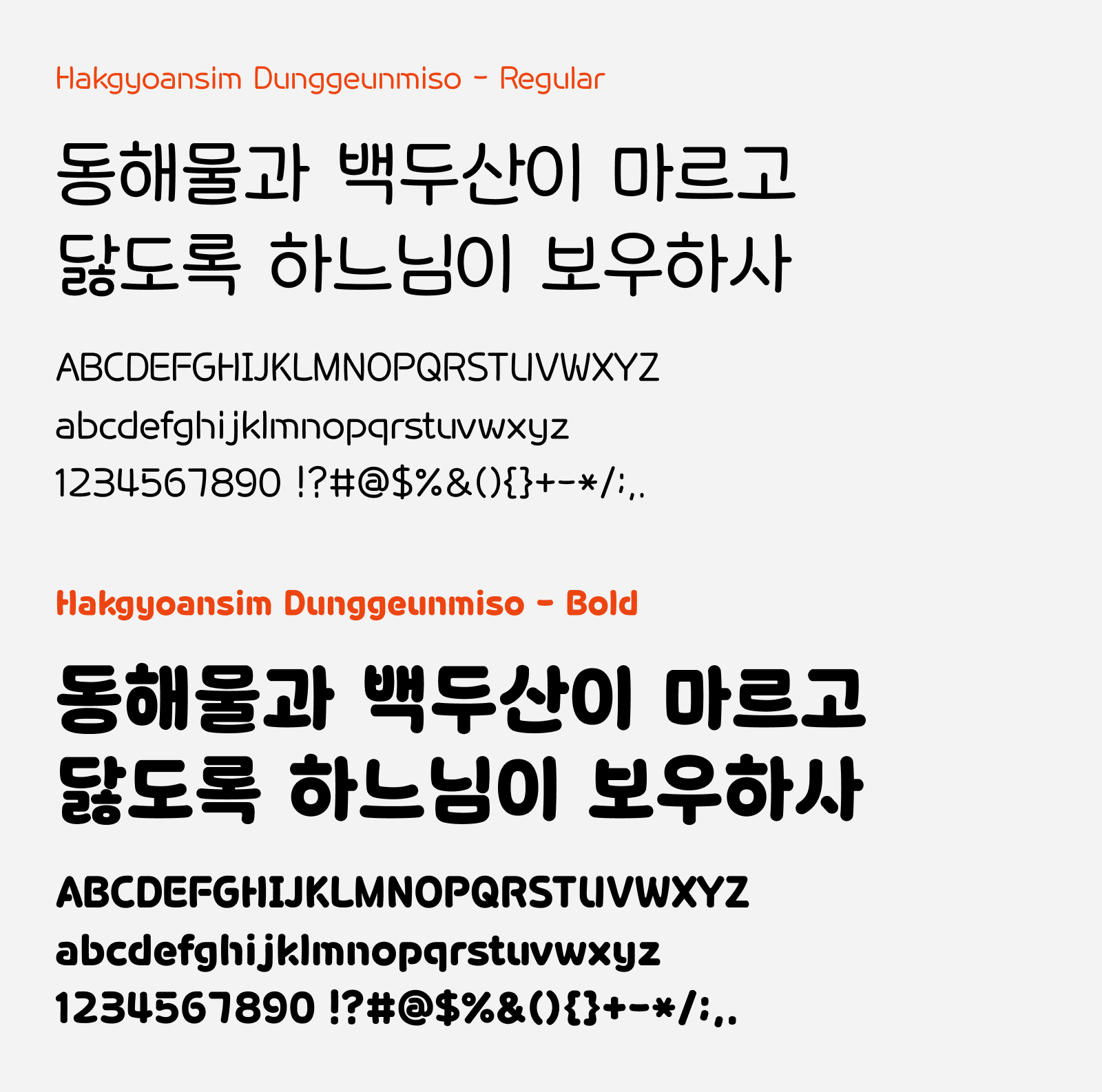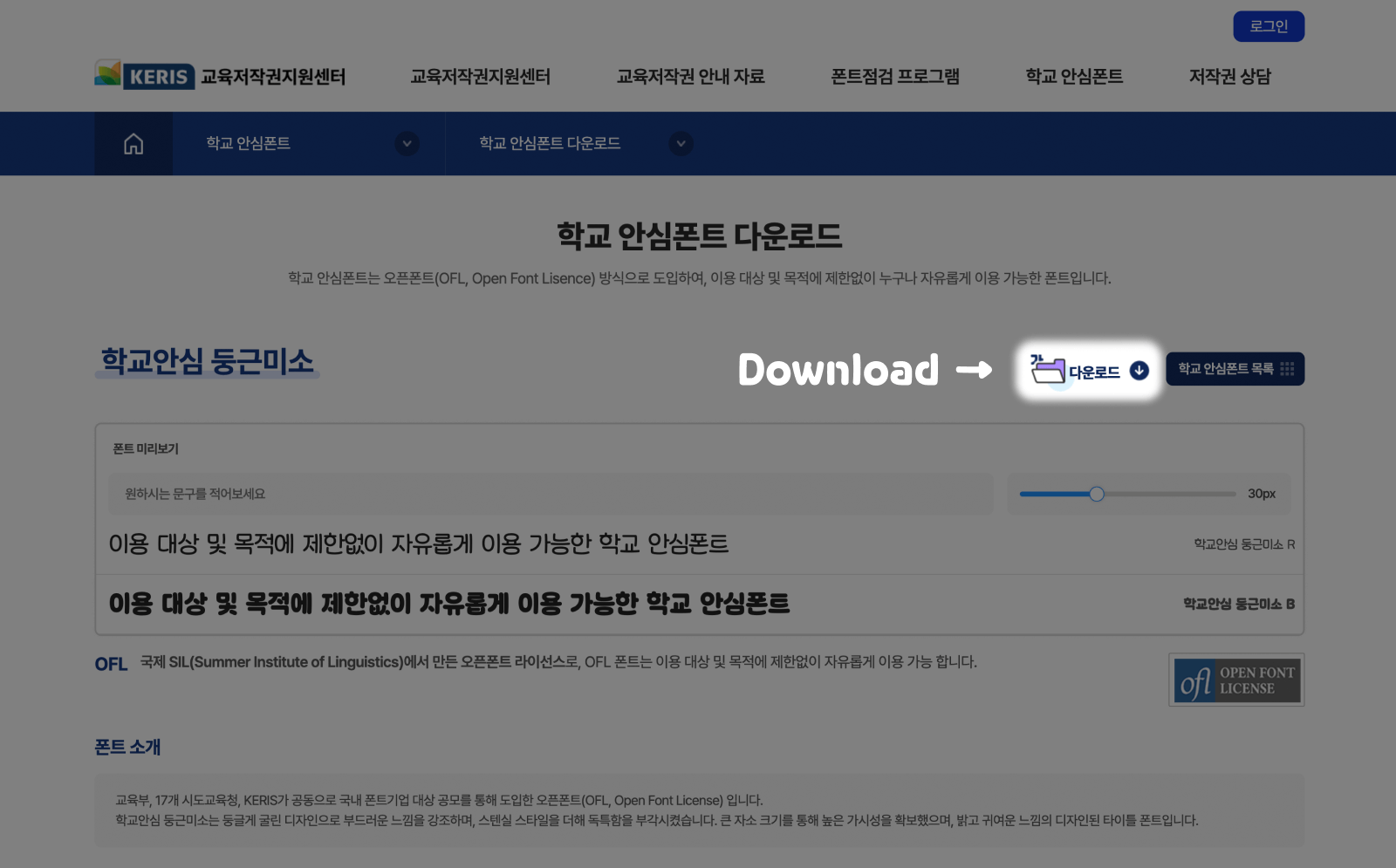
Hakgyoansim Dunggeunmiso
Hakgyoansim Dunggeunmiso (학교안심 둥근미소) is a cute, rounded free font with a hint of stencil style. Dunggeummiso means “rounded smile”, and you can see it clearly in the font design as the supposedly straight vertical and horizontal strokes are made slightly curved, giving it a soft, friendly, warm and welcoming feel. The strokes of bold weight feels like they are resembling sausages as they also have slight curves. Besides that, the stencil style was incorporated into some of the letters that gave additional style point to this font.
Hakgyoansim Dunggeunmiso comes with two weights: Regular and Bold. Together they give strong contrast and can be paired well in design. Other than Korean characters, it supports Latin, Cyrillic and Japanese Kana characters too, although I think the Kana characters did not carry the similar design style. Hakgyoansim Dunggeunmiso is one of the many fonts that are provided by Korea Education and Research Information Service (KERIS) through their Educational Copyright Support Center. “Hakgyoansim” means school safety, which means this font can be safely used on educational materials freely without any copyright compliance concern. Also, this font is released under SIL Open Font License, it can also be used on personal and commercial projects.